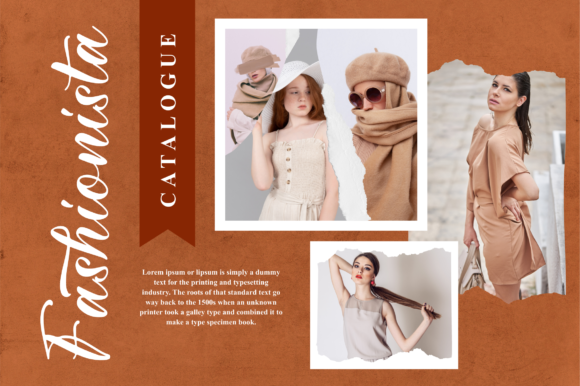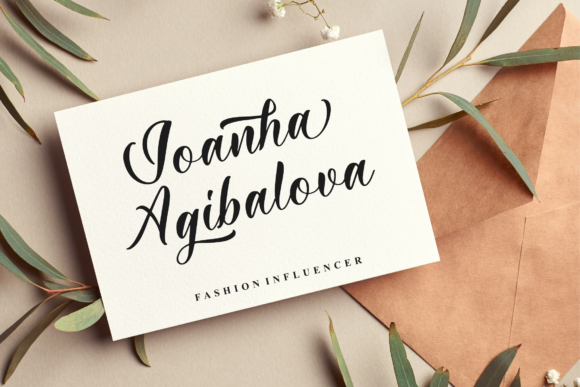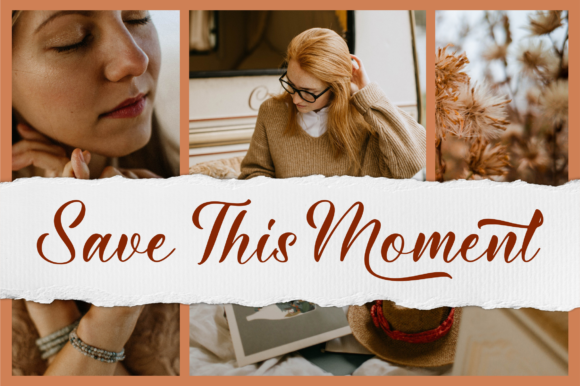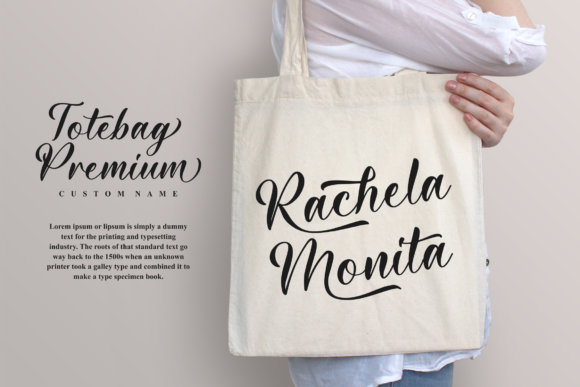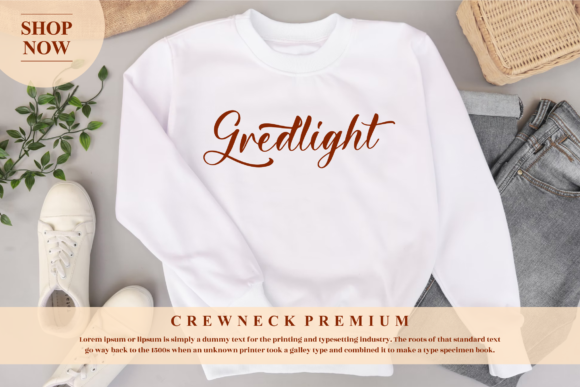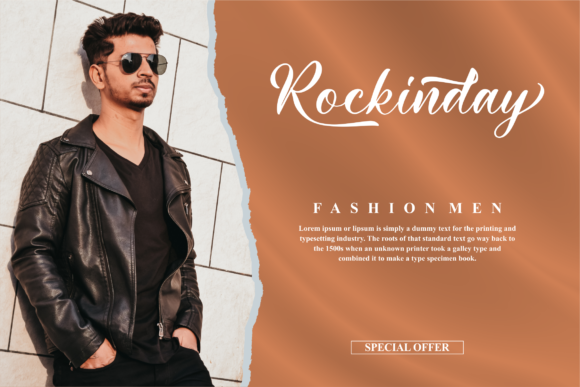
Introducing Georghie Monica Font: A Timeless Handwritten Classic
Are you on the hunt for a font that exudes elegance, sophistication, and a touch of playfulness? Look no further than the Georghie Monica Font! This lovely and timeless handwritten font is perfect for designers and crafters seeking to create eye-catching logos, branding, and quotes that leave a lasting impression.
What Makes Georghie Monica Font So Special?
Georghie Monica Font is a beautifully crafted handwritten font that boasts a unique blend of classic and modern elements. Its elegant strokes, flowing curves, and subtle imperfections give it a warm, personal feel that’s sure to capture the hearts of your audience. Whether you’re designing a logo, creating a brand identity, or crafting a quote, this font is sure to add a touch of sophistication and style.
Key Features of Georghie Monica Font
- Handwritten Elegance: Georghie Monica Font features beautiful, flowing strokes that give it a personal and elegant feel.
- PUA Encoded: This font is PUA (Private Use Area) encoded, which means you can access all of the glyphs and swashes with ease. This makes it incredibly versatile and easy to use.
- Multilingual Support: Georghie Monica Font supports multiple languages, making it perfect for designers and crafters working on international projects.
Georghie Monica Font is an excellent choice for designers and crafters working on a variety of projects, including:
- Logo Design: Create a lasting impression with a custom logo that showcases your brand’s personality and style.
- Branding: Develop a consistent brand identity that exudes elegance and sophistication.
- Quote Design: Create inspiring and motivational quotes that are sure to resonate with your audience.
- Stationery and Invitations: Add a touch of elegance to your stationery, invitations, and greeting cards.
Tips for Using Georghie Monica Font
To get the most out of Georghie Monica Font, here are a few tips to keep in mind:
- Experiment with Font Sizes: Georghie Monica Font looks great in a variety of font sizes, from large headings to smaller body text.
- Play with Swashes: Take advantage of the font’s PUA encoding to access a range of swashes and glyphs that can add a touch of elegance to your designs.
- Pair with Other Fonts: Georghie Monica Font pairs beautifully with other fonts, so don’t be afraid to experiment with different combinations.